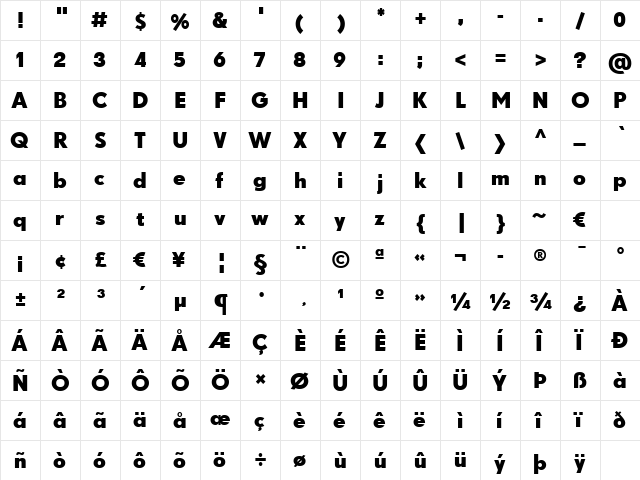
Drescher Grotesk BT Bold Regular
Design Context for Drescher Grotesk BT Bold Typeface
Drescher Grotesk BT Bold has the quiet confidence of well-executed sans-serif typography: versatile, unobtrusive, and dependable at any size. The heavy weight commands attention and anchors typographic hierarchies.
Well-suited to navigation labels, product packaging, and anywhere legibility at scale is essential.
Font Pairing: Use Drescher Grotesk BT Bold for headlines alongside a lighter-weight sans or serif for body copy to establish clear visual hierarchy.
Pro Tip: Use Drescher Grotesk BT Bold for UI labels, navigation, and short-form body copy where clean legibility is the priority.